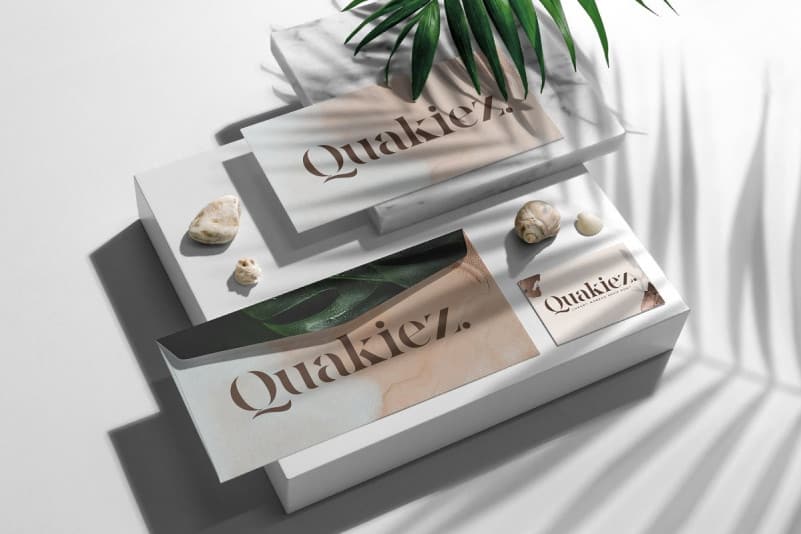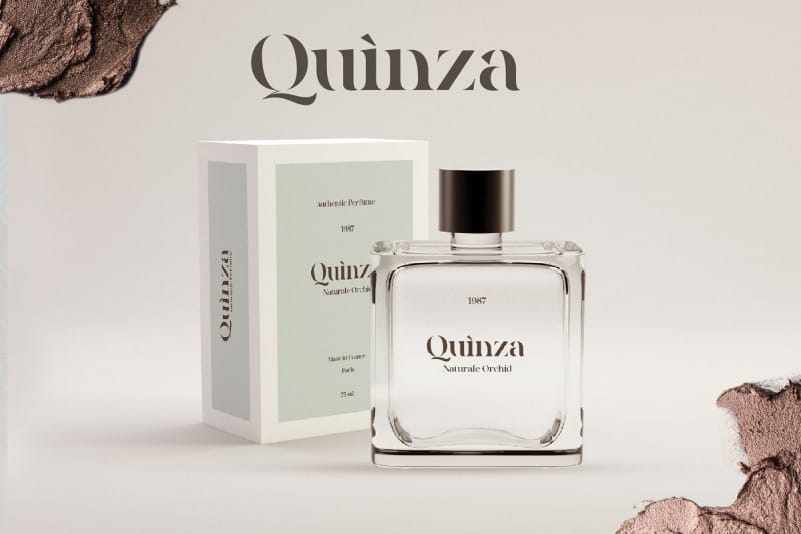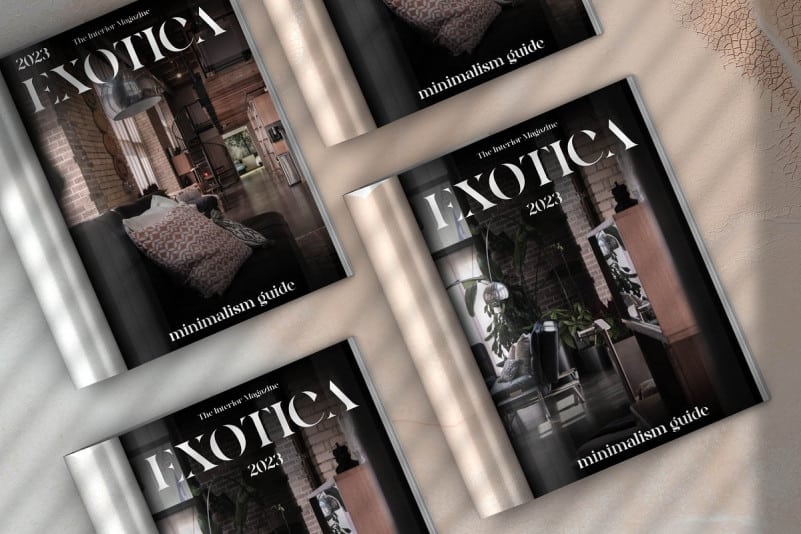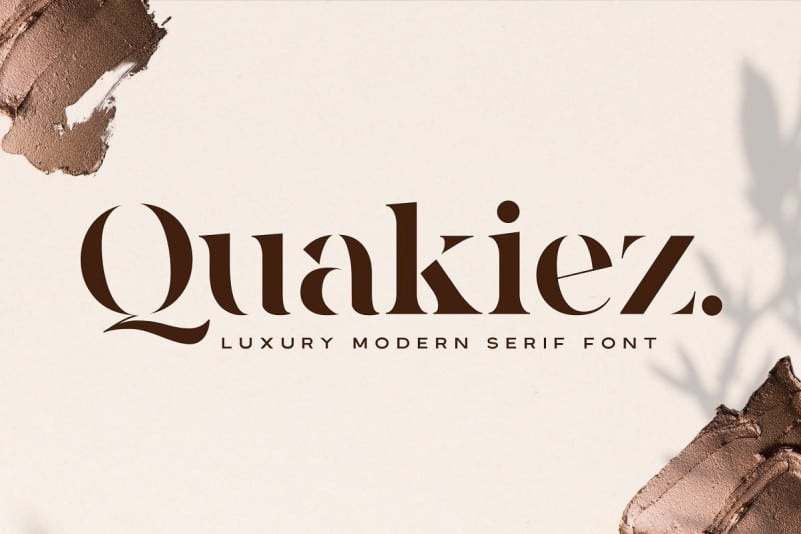
Quakiez Serif Font
Quakiez Serif Font is a uniquely hand-lettered serif typeface that compliments and brings a unique touch to projects. This typeface maintains a structured approach, yet is able to convey a sense of friendliness and lightheartedness. It’s designed and shared by Almarkha Type. Quakiez – Luxury Moder Serif a modern serif font with a stylish touch inspired by the famous minimalist logo and Quakiez has 2 regular and display styles is perfect for the purposes of designing templates, brochures, videos, advertising branding, logos and more.